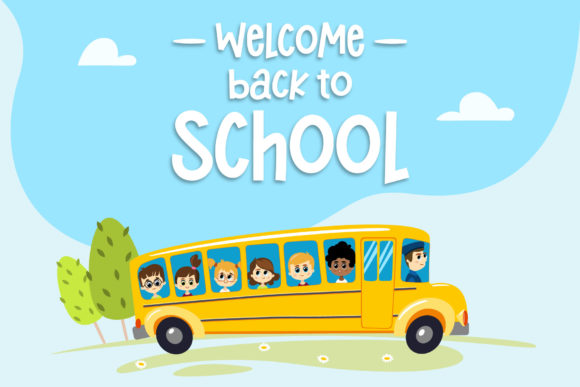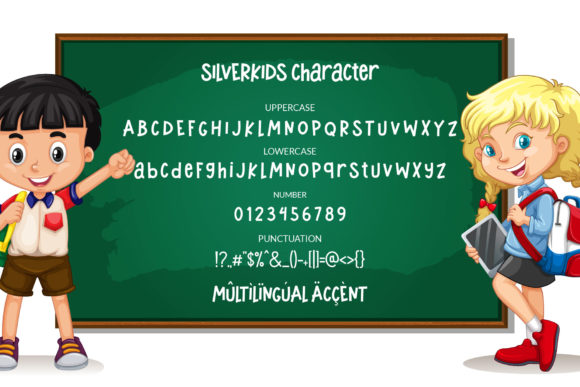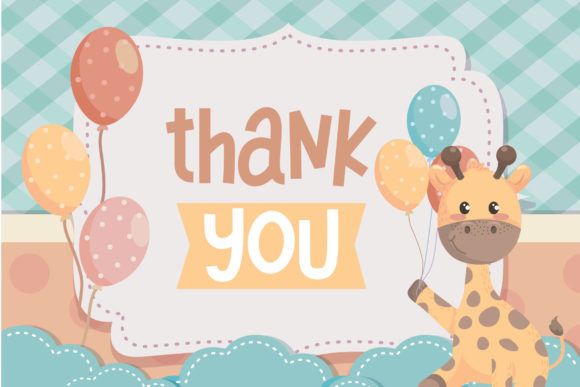
Introduction to Silverkids Font
Do you ever find yourself in a creative rush, frantically searching for the perfect font to bring your DIY project to life? I know I have! Whether it’s a handmade card for a loved one or a logo for your new business, finding the right font can make all the difference. That’s why I’m so excited to share with you my latest discovery: the Silverkids Font.
This sweet, fun, and cute handwritten font is a game-changer for designers and crafty enthusiasts alike. With its clean and soft design, it’s the perfect fit for any creative project that requires a personal touch. Whether you’re working on a Cricut project, designing social media graphics, or creating a brand identity, the Silverkids Font is sure to impress.
Key Features of Silverkids Font
- High-quality, unique font design suitable for creative projects
Honest Review: Silverkids Font
I recently stumbled upon the Silverkids Font while searching for a design resource for a creative project, and I must say it’s been a game-changer. The font is free to download, and it’s perfect for adding a touch of whimsy to any design.
- The font has a high quality and is well-designed, making it perfect for a variety of creative projects.
- The transparent background makes it easy to use in different design settings.
- The font is not suitable for formal or professional projects, as it has a more playful tone.
Overall, I’m really impressed with the Silverkids Font. It’s a great addition to any design library, and I’ve already used it in several projects. If you’re looking for a fun and quirky font, I highly recommend giving it a try.
To get the most out of the Silverkids Font, use it for titles, headings, and any other design element where a clean and modern look is desired. This font is particularly useful for creating engaging social media graphics, presentations, and promotional materials.